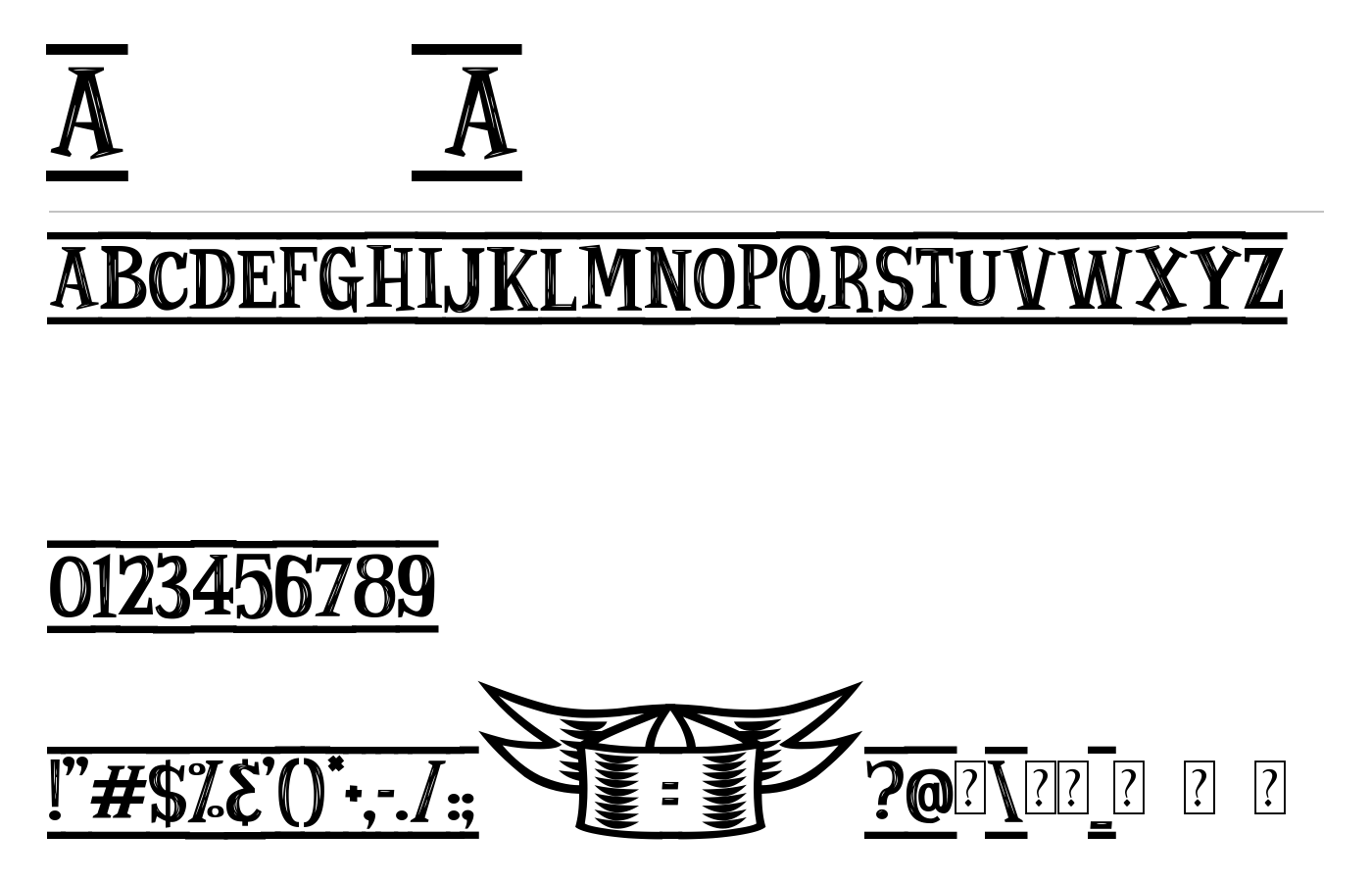
Ancient Ad is a distinctive serif font with a vintage, engraved feel, featuring tall, narrow letterforms and sharp, slightly rough edges that evoke an old-fashioned, handcrafted style. Its high contrast strokes and decorative, bracketed serifs give it a strong, classic personality ideal for designs seeking an antique or historical touch. This font works beautifully in logos, headlines, and packaging where a nostalgic, artisanal vibe is desired.
Ancient Ad Font
About Ancient Ad Font